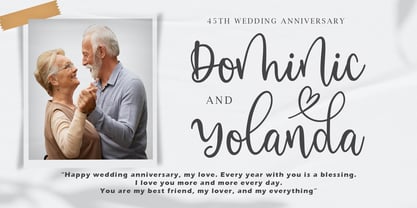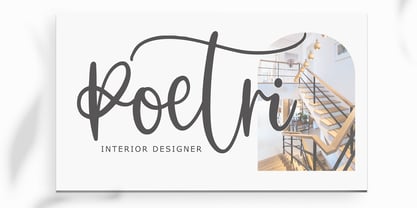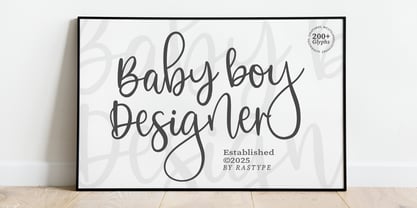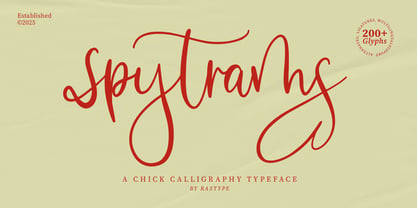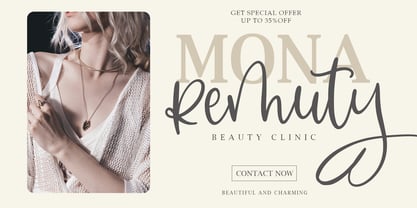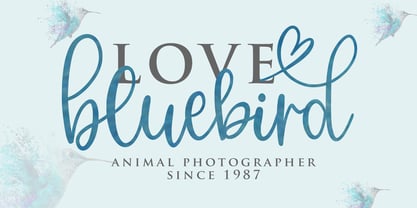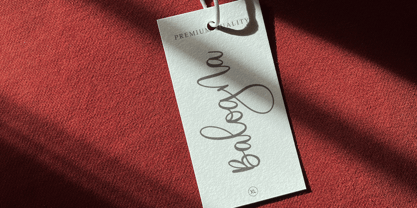
Spytrams
The Spytrams Font Family was designed by Muhammad Taufik and published by Rastype Studio. Spytrams contains 2 styles and family package options. More about this family
Spytrams is a stylish calligraphy typeface that captures a playful yet elegant handwritten feel. Its flowing strokes, exaggerated swashes, and smooth curves create a dynamic and expressive rhythm, making it perfect for branding, invitations, packaging, and editorial headlines. The font balances modern chic aesthetics with a touch of classic script charm, enhanced by its rich ligatures and over 200 glyphs for multilingual support. Spytrams delivers a bold personality while maintaining readability, ideal for designers seeking a distinctive and graceful signature style.